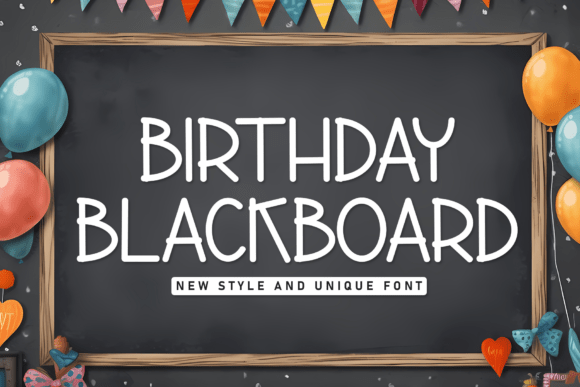
Get Ready to Celebrate in Style with the Birthday Blackboard Font
You’ve spent hours brainstorming the perfect design for a special birthday celebration, but something’s missing. The words just aren’t coming together as you envision them. That’s where the magic of typography comes in – and the Birthday Blackboard Font is here to make your creative dreams a reality.
This charming font is designed to capture the whimsy and playfulness of a birthday celebration, making it the perfect addition to any party decor, invitation, or social media post. With its unique, hand-drawn style, the Birthday Blackboard Font adds a personal touch to any design, setting it apart from more generic fonts. As a designer, you’ll appreciate the versatility and ease of use that comes with this font, making it a valuable addition to your toolkit.
Birthday Blackboard Font Key Features
- Font Style: Casual, Handwritten, and Chalkboard-inspired font
- Unique Characteristics: Simulates the look of handwritten text on a blackboard, with subtle imperfections and texture
Birthday Blackboard Font Review
Overall, I’d say the Birthday Blackboard Font has its charm, but it’s not without its quirks. Let’s break it down.
- Unique and playful feel that’s perfect for birthday-themed designs
- Clear and legible, even at smaller font sizes
- Works well with bold and italic styles for added emphasis
- Limited character set, which can make it difficult to use for longer texts
- May not be the best choice for formal or professional designs
- Some characters may appear slightly irregular or inconsistent
Overall, I’d say the Birthday Blackboard Font is a great choice for casual, creative projects or designs where a playful feel is desired. However, it may not be the best fit for more formal or complex designs. With some careful planning and attention to detail, it can be a fun and effective font to work with.
Use the Birthday Blackboard Font to add a playful touch to your designs. Some common use cases include:
- Birthday invitations and party decorations.
- Photography captions and quotes.
- Wedding decorations and signage.
Remember to experiment with different font sizes, colors, and styles to get the most out of the Birthday Blackboard Font.
Compared to Birthday Blackboard Font, Great Vibes Font has a more refined and elegant look, making it suitable for a wider range of designs. It’s also more versatile, with a larger character set and better support for international characters.
Compared to Birthday Blackboard Font, Alex Brush Font has a more sophisticated and elegant look, with a more polished and refined feel. It’s also more suitable for formal designs, whereas Birthday Blackboard Font is more playful and casual.